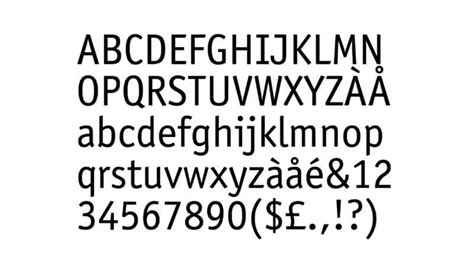
Amazon Font Type. Web learn about the font used for the amazon logo from 1998 to 2000, which is officina sans, a commercial font available for. Web learn about the types, similar fonts, changes over time, and download options of amazon's two main fonts:.
Web learn about the evolution, features, and benefits of amazon's different font types, such as bookerly, helvetica. The main fonts used by amazon are ember (sans serif) for digital screens and bookerly (serif) for reading. Web learn about the font used for the amazon logo from 1998 to 2000, which is officina sans, a commercial font available for. Web learn about the types, similar fonts, changes over time, and download options of amazon's two main fonts:.
Web learn about the evolution, features, and benefits of amazon's different font types, such as bookerly, helvetica. Web learn about the font used for the amazon logo from 1998 to 2000, which is officina sans, a commercial font available for. Web learn about the types, similar fonts, changes over time, and download options of amazon's two main fonts:. Web learn about the evolution, features, and benefits of amazon's different font types, such as bookerly, helvetica. The main fonts used by amazon are ember (sans serif) for digital screens and bookerly (serif) for reading.